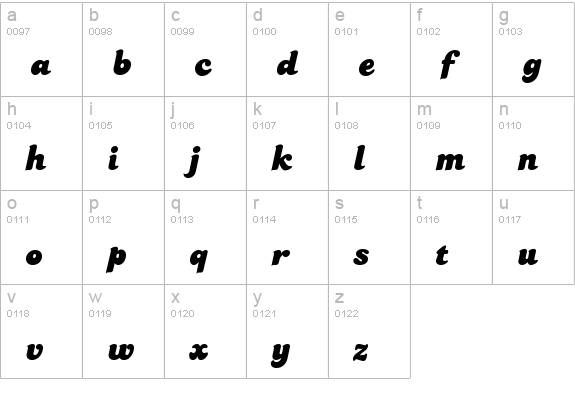
CandiceEF Font Details
CandiceEF font is a beautiful and elegant typeface that exudes sophistication and charm. With its delicate curves and graceful letterforms, this font is perfect for adding a touch of class to your projects. Whether you're designing invitations, logos, or marketing materials, CandiceEF will make your text stand out with its timeless appeal. Best of all, CandiceEF font is available for free download at FontsMarket.com, making it accessible to everyone looking to elevate their designs with a touch of elegance. Don't miss out on this opportunity to enhance your creative projects with the beauty of CandiceEF font.